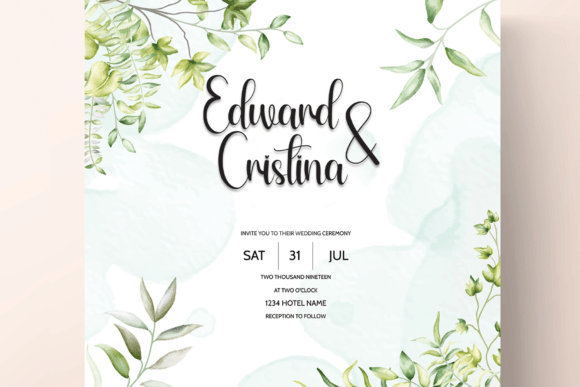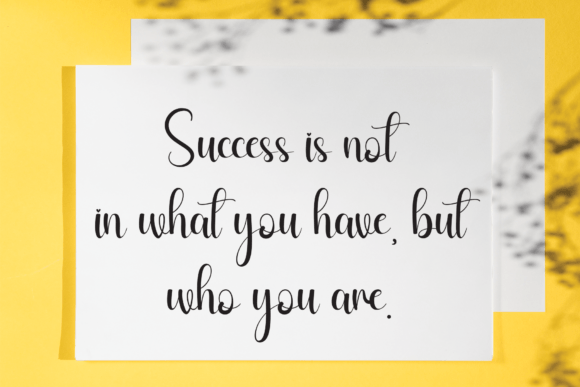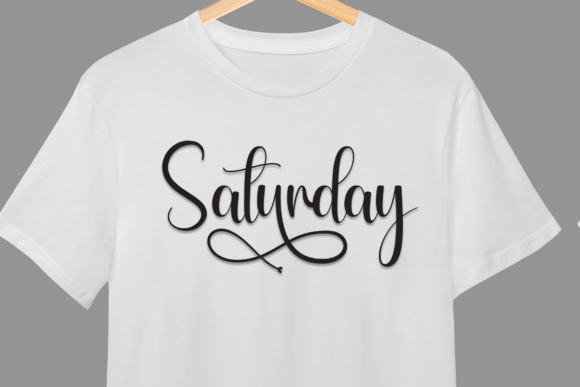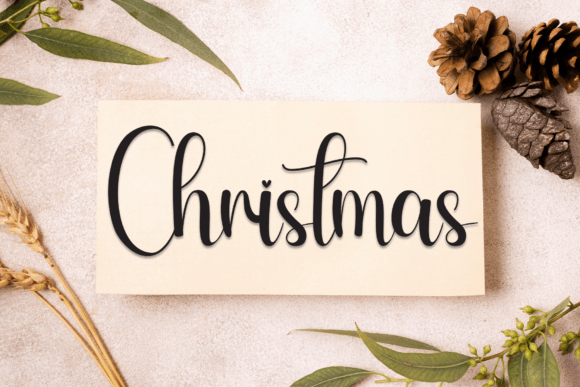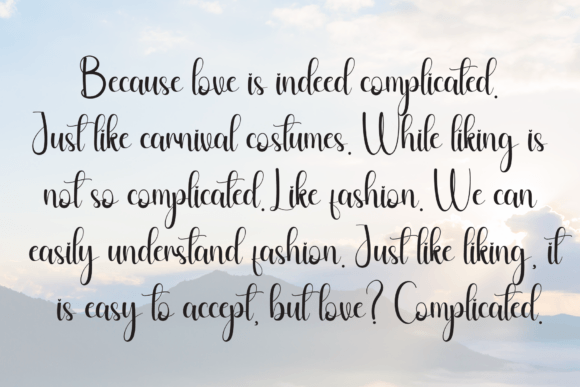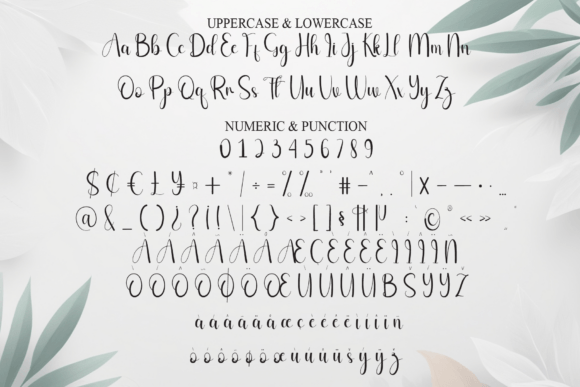
Discover the Charm of Alphabeth Font: A Handwritten Display Font with a Personal Touch
Have you ever been in the middle of a design project, pouring your heart and soul into it, only to hit a creative roadblock when it comes to choosing the perfect font? I certainly have. Recently, I was working on a wedding invitation design for a dear friend, and I wanted a font that would capture the warmth and elegance of the occasion. That’s when I stumbled upon Alphabeth Font, a delightful handwritten display font that instantly won me over with its affable and charming personality.
The Perfect Blend of Whimsy and Elegance
Alphabeth Font is more than just a beautiful font – it’s an experience. With its playful letterforms and endearing charm, it’s the perfect way to add a dash of personality to your designs. Whether you’re crafting elegant wedding invitations, heartfelt cards, or simply looking to spice up your designs with a fun flourish, Alphabeth Font is an excellent choice.
What I Love About Alphabeth Font
• ✨ Unique and playful letterforms that add a touch of whimsy to any design
• ✅ Elegant and sophisticated, perfect for wedding invitations and formal events
• 💕 Enduring charm that works well for a variety of design projects, from cards to branding
• 🎉 Highly versatile, with a range of applications from digital to print
While Alphabeth Font is an exceptional font, there are a few minor quirks to be aware of:
• ⚠️ Some letters may require manual kerning for optimal spacing
• 🤔 Limited availability of certain OpenType features in certain software
The Story Behind Alphabeth Font
Alphabeth Font was designed with the intention of creating a font that would bring a sense of warmth and personality to any design project. Inspired by classic handwritten fonts, the designer aimed to create a modern take on a timeless classic. The result is a font that is both elegant and whimsical, perfect for a wide range of design applications.
Q: What makes Alphabeth Font unique?
A: Alphabeth Font’s unique blend of elegance and whimsy makes it stand out from other fonts. Its playful letterforms and endearing charm make it perfect for designs that require a personal touch.
Q: Is Alphabeth Font suitable for digital use?
A: Absolutely! Alphabeth Font is designed to work well in both digital and print applications. Its clear and legible letterforms make it perfect for use on websites, social media, and more.